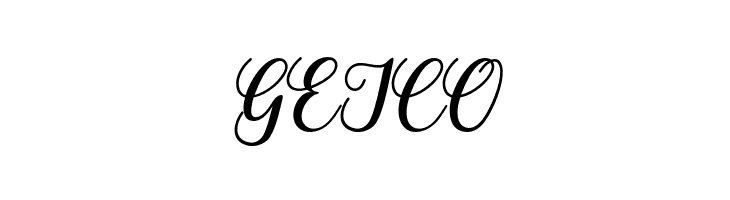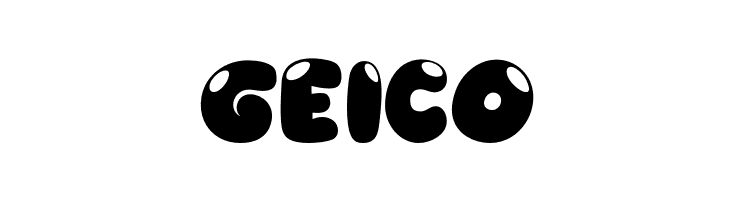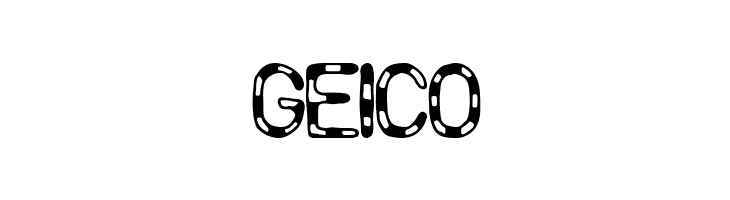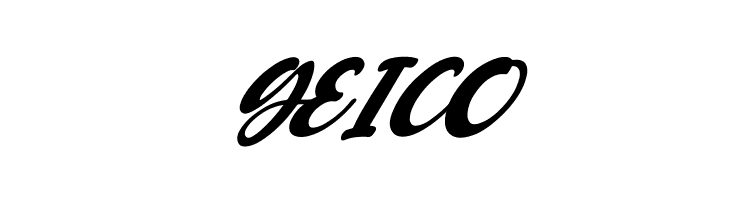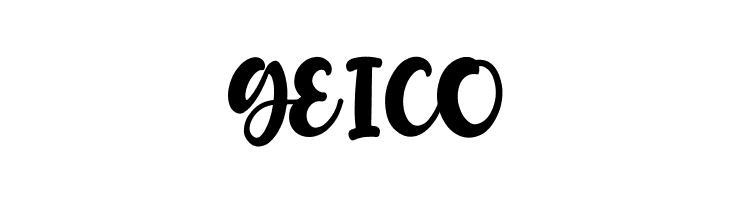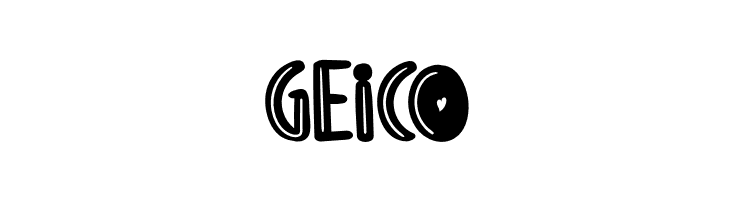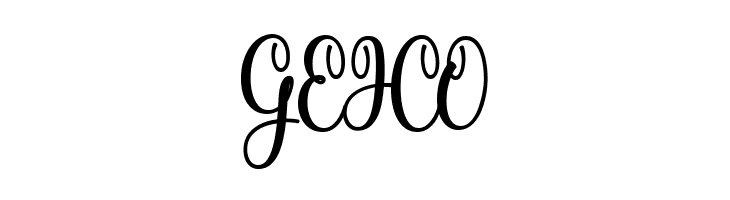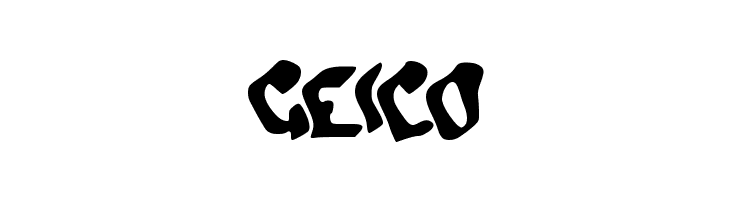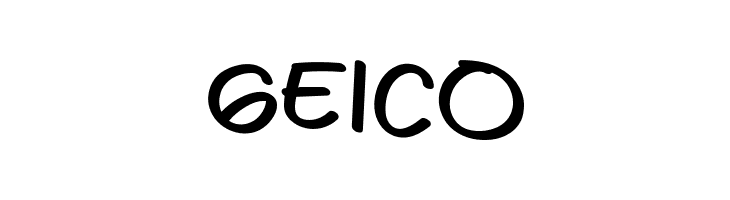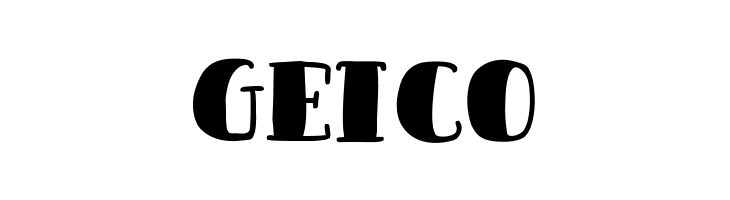
• Candylitee
A playful handwritten font with a casual and friendly style.
• Candylove
A playful, whimsical script font with flowing, interconnected letters and bold numerals.
• CandyLoveFREE
A playful, bold font with whimsical, rounded characters and decorative elements.
• Candyman
A playful, polka-dotted font with bold, rounded characters.
• CandyNight
A playful and bold decorative font with quirky letterforms.
• CandyPaint-Regular
A playful, bold font with rounded, bubbly characters and a hand-drawn feel.
• CandyPop!
A playful, candy-inspired font with bold, rounded characters and a three-dimensional effect.
• CandyRegular
• Candyreins
A playful, whimsical handwritten font with flowing strokes and a casual vibe.
• CANDYS BW PERSONAL USE Bold
A bold, playful font with a unique striped pattern and rounded characters.
• Candys R Grozz Regular
• Candyshop Regular
A playful, bubble-like font with bold, rounded characters.
• Candyshop-Regular
A playful, bubble-like font with a glossy, candy-inspired design.
• CandyStore
A playful, bubbly font with bold, rounded shapes and a whimsical design.
• CandyTime
A bold, candy-striped font with a playful and festive style.
• Candywell
A bold, playful cursive font with rounded strokes and a lively, dynamic style.
• Candywell Italic
A bold, italicized cursive font with thick, flowing strokes.
• Candywell Original
A bold, playful script font with a handwritten style.
• Candywell Original Italic
A bold, italicized cursive font with fluid, connected characters.
• Candyz
A playful, hand-drawn font with rounded, bold characters.
• Cane Lane Light
• Cane Pillars
A festive, candy cane-inspired font with bold, striped characters.